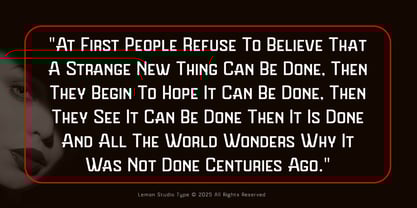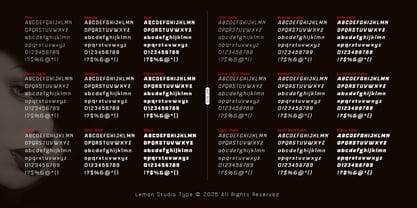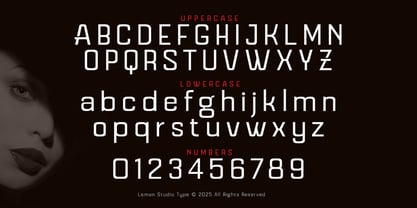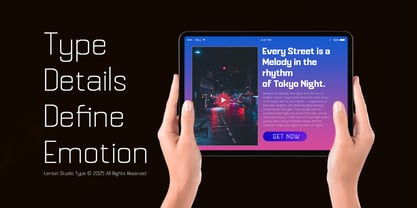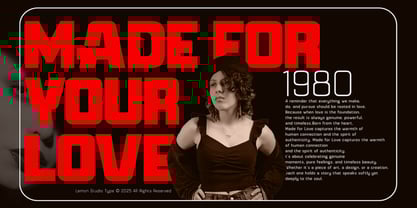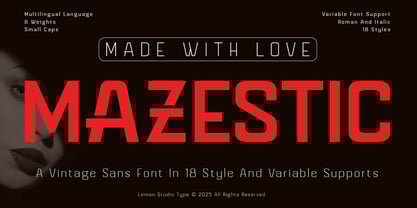
Mazestic Sans
by Lemon Studio Type
The Mazestic Sans Font Family was designed by Herpin Maulana and published by Lemon Studio Type. Mazestic Sans contains 20 styles and family package options. More about this family
Discover a sophisticated sans serif typeface that artfully blends vintage charm with modern minimalism. Featuring 18 styles and variable font support, this typeface provides exceptional creative flexibility for a wide range of projects, including branding, editorial design, posters, and packaging. Each character radiates elegance and confidence, ensuring your designs attract attention and exude effortless sophistication. Perfect for contemporary branding and stylish editorial layouts, this typeface is a versatile choice for designers seeking to make a lasting impression.
Designers: Herpin Maulana
Foundry: Lemon Studio Type
Mazestic Sans